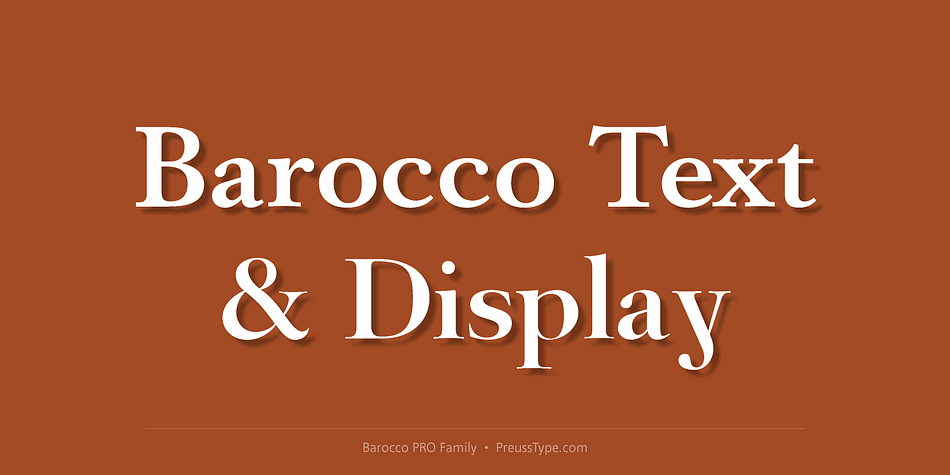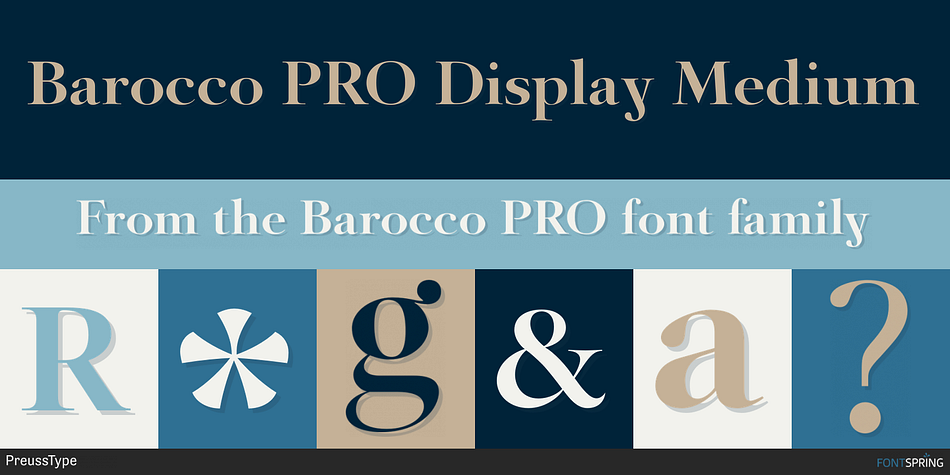
Barocco PRO Display Medium
Barocco PRO is a serif and display serif font family. This typeface has twenty-four styles and was published by preussTYPE.
The Barocco family essentially consists of two optical weights for different purposes: Text for book projects and Display for elegant front pages or posters.
This typeface family is a traditional book font with an unmistakable personality and a contemporary twist and is distinguished by its outstanding legibility both in print and on the web. Multilingualism in the non-italic PLUS version (Latin, Cyrillic and Greek) and countless ligatures invite you to unleash your imagination.